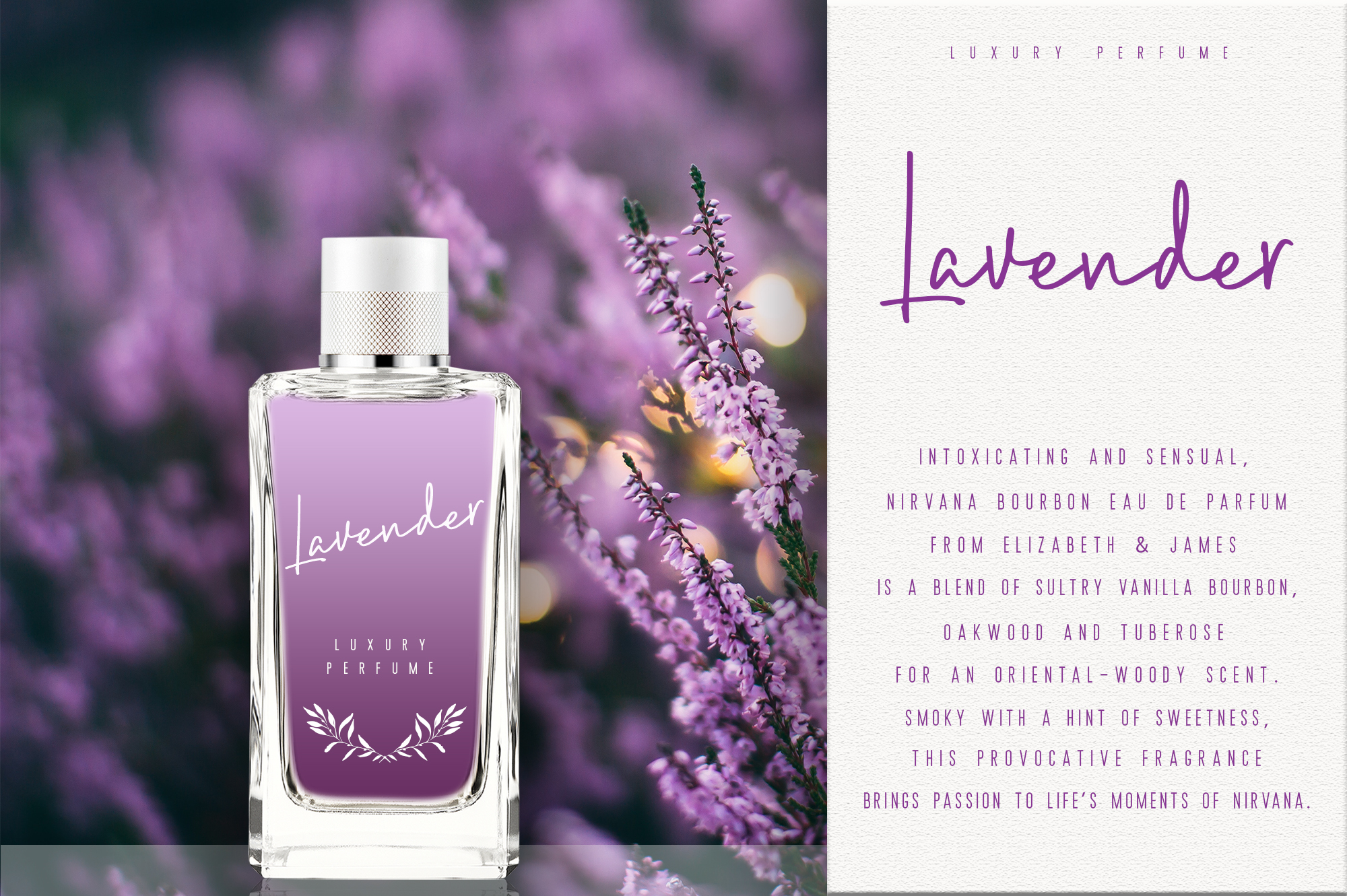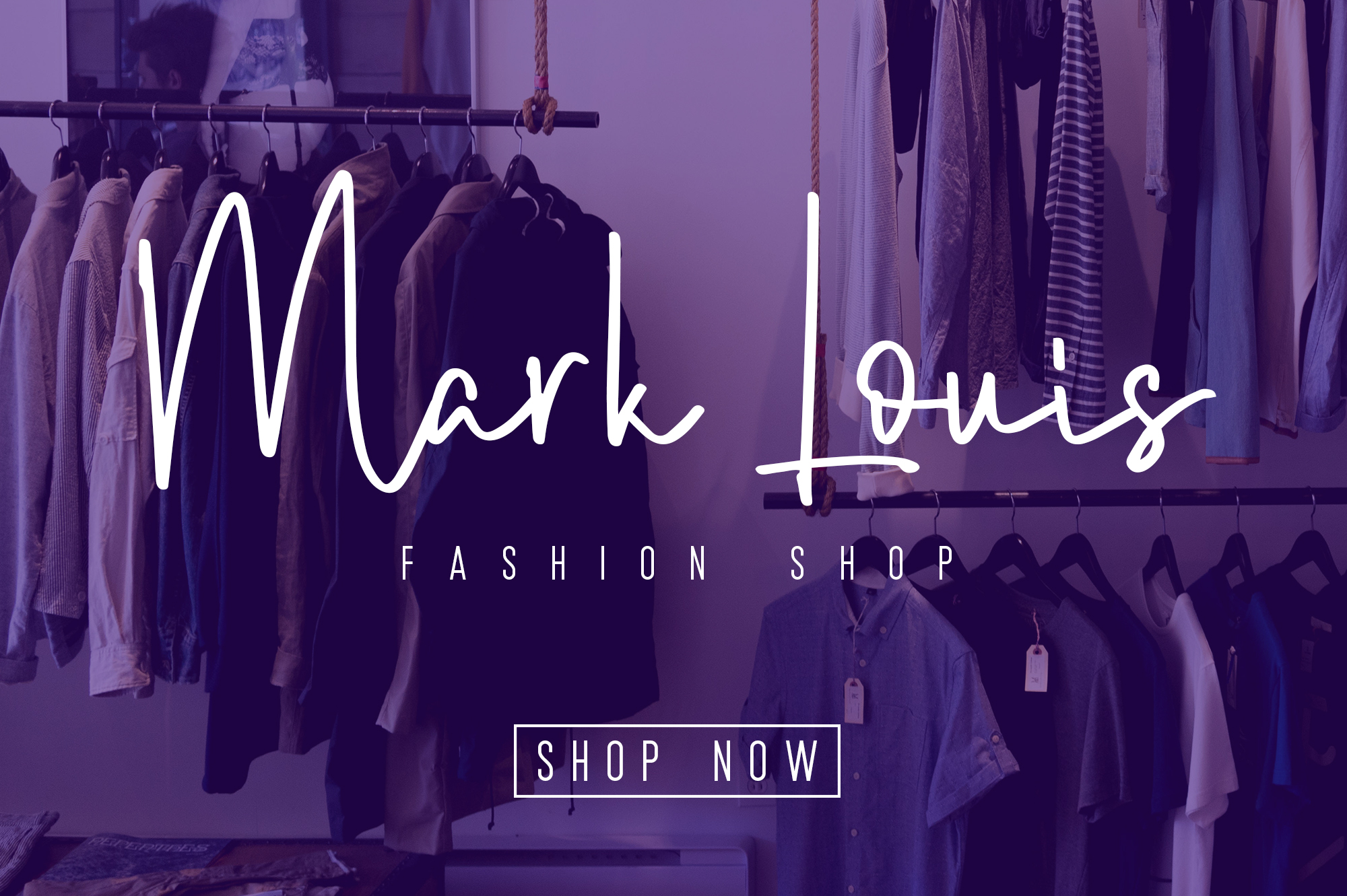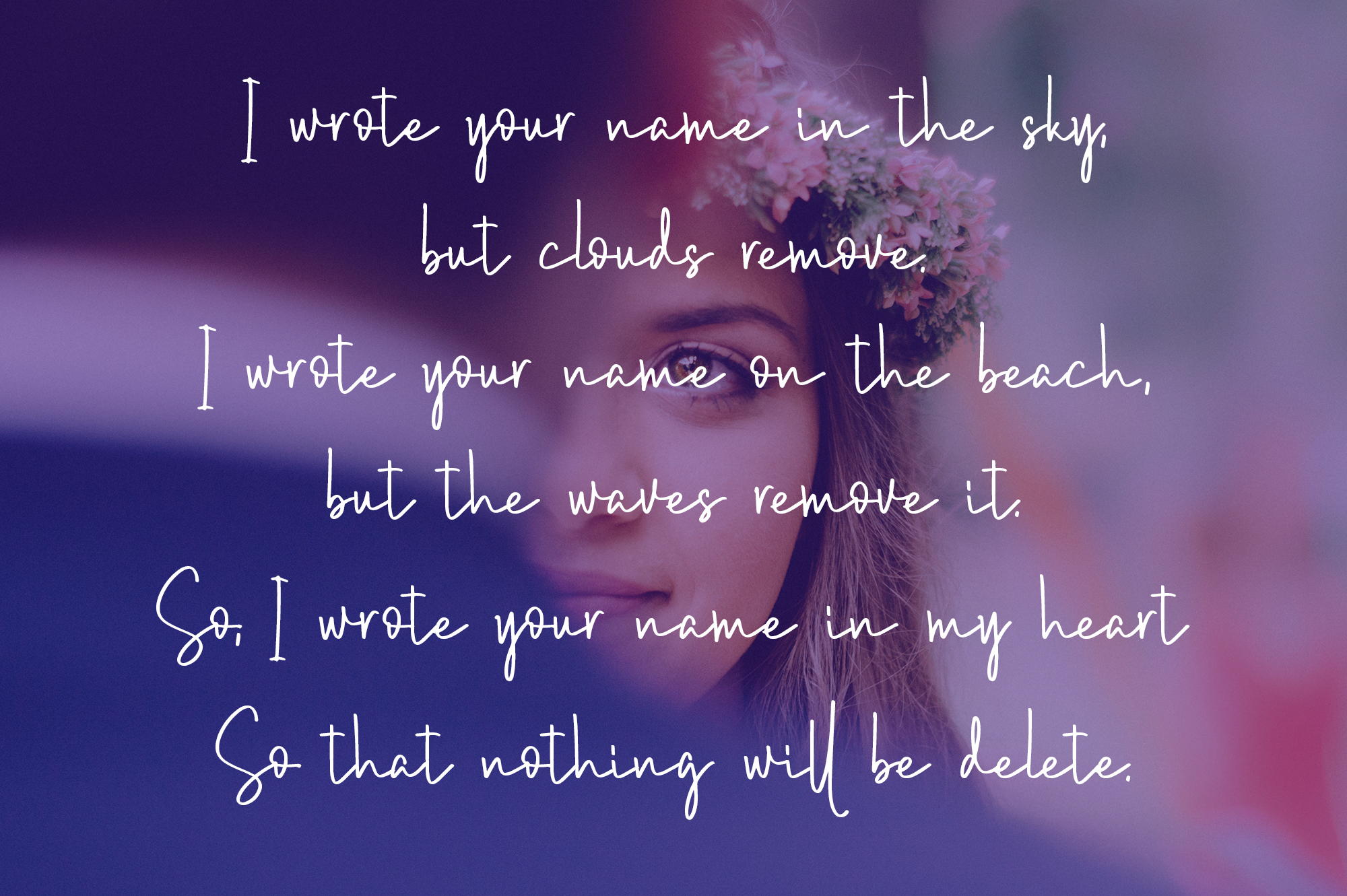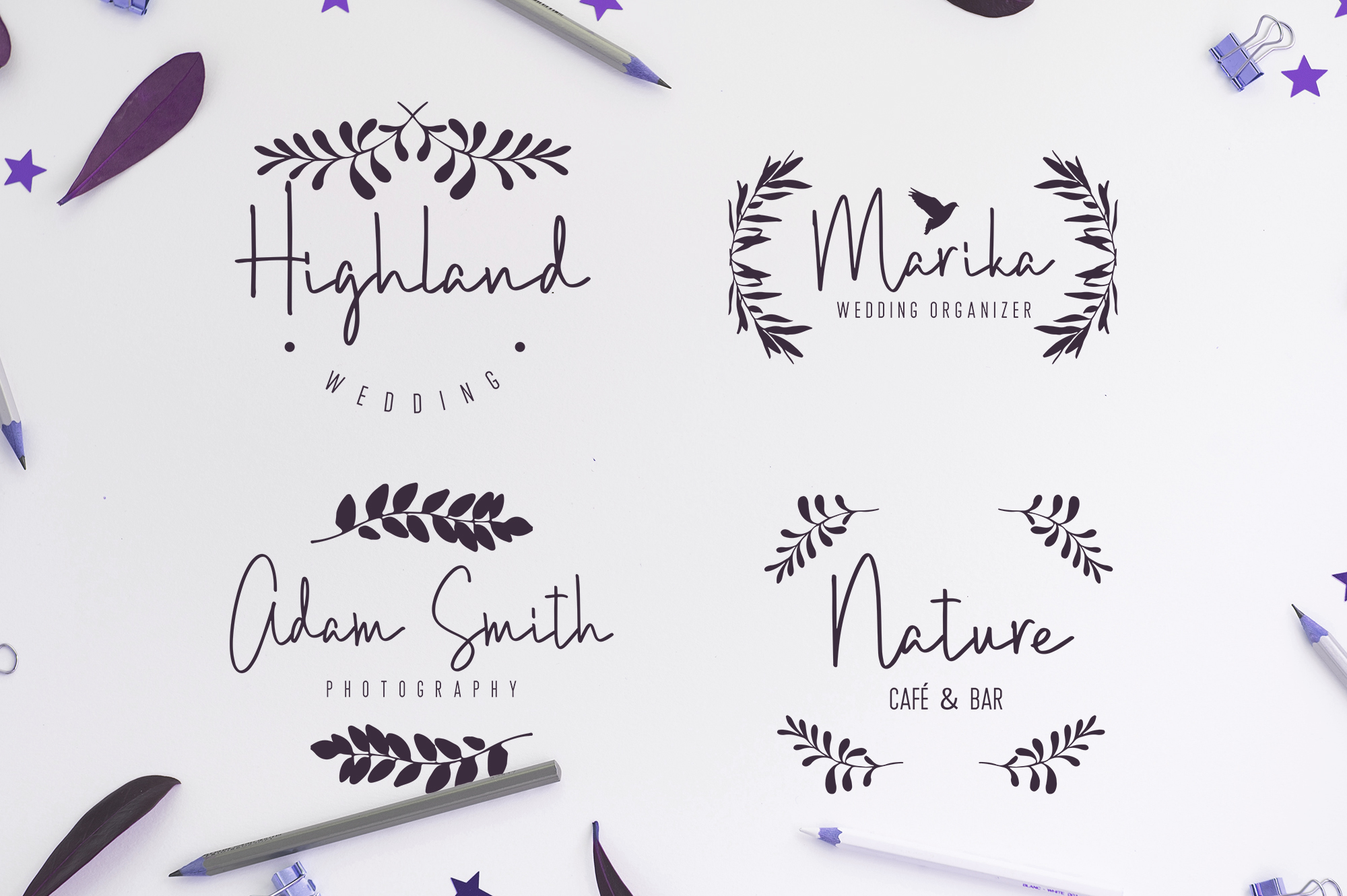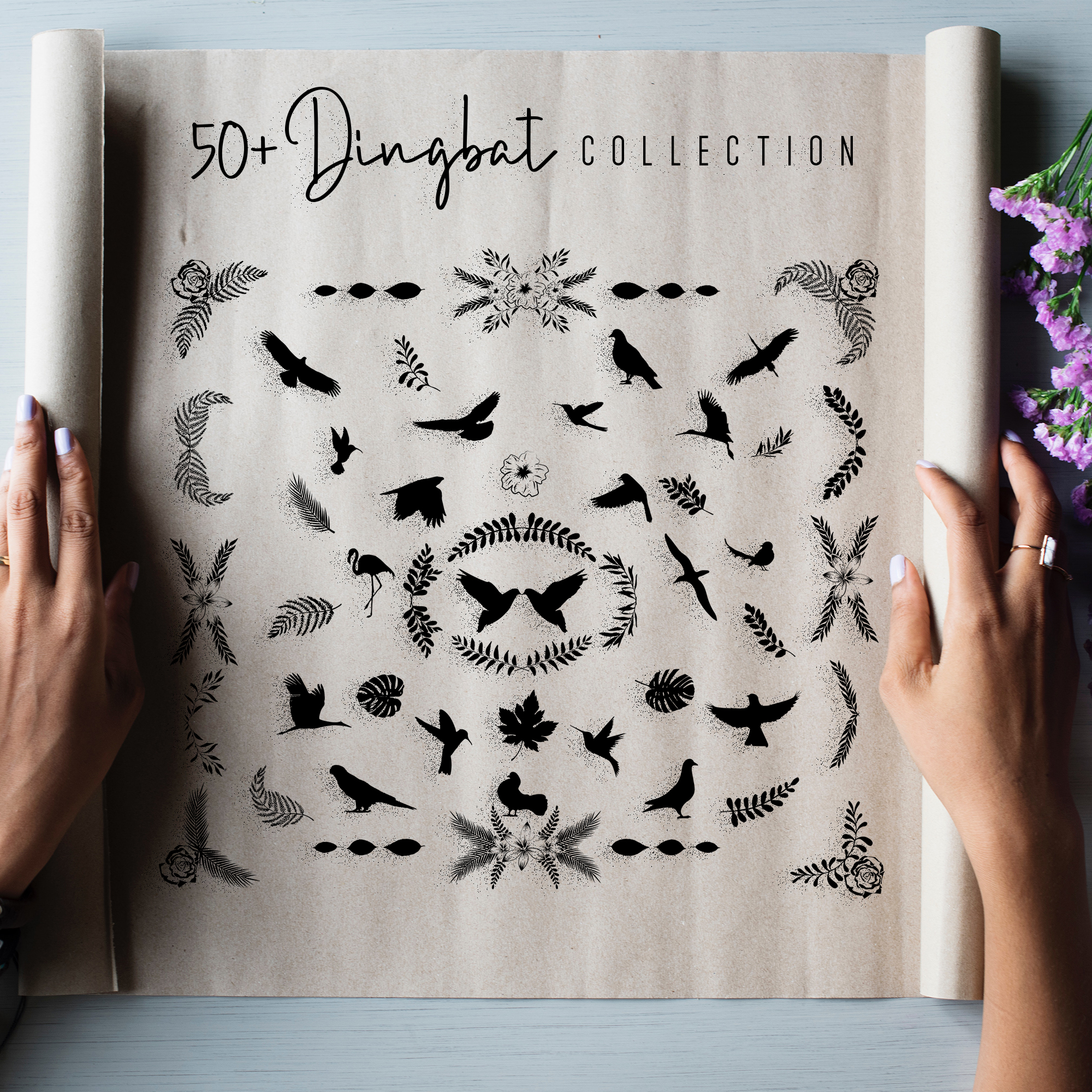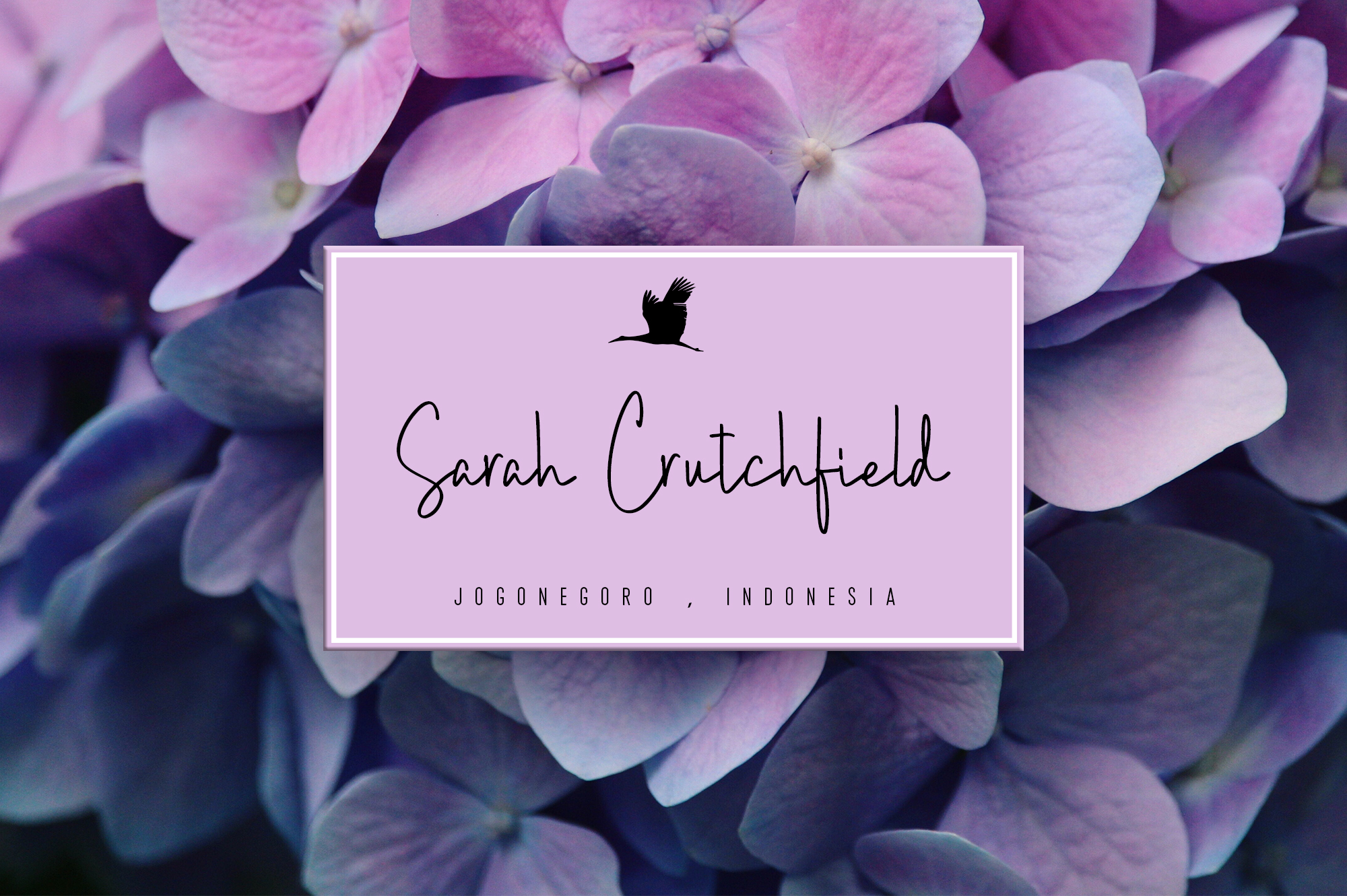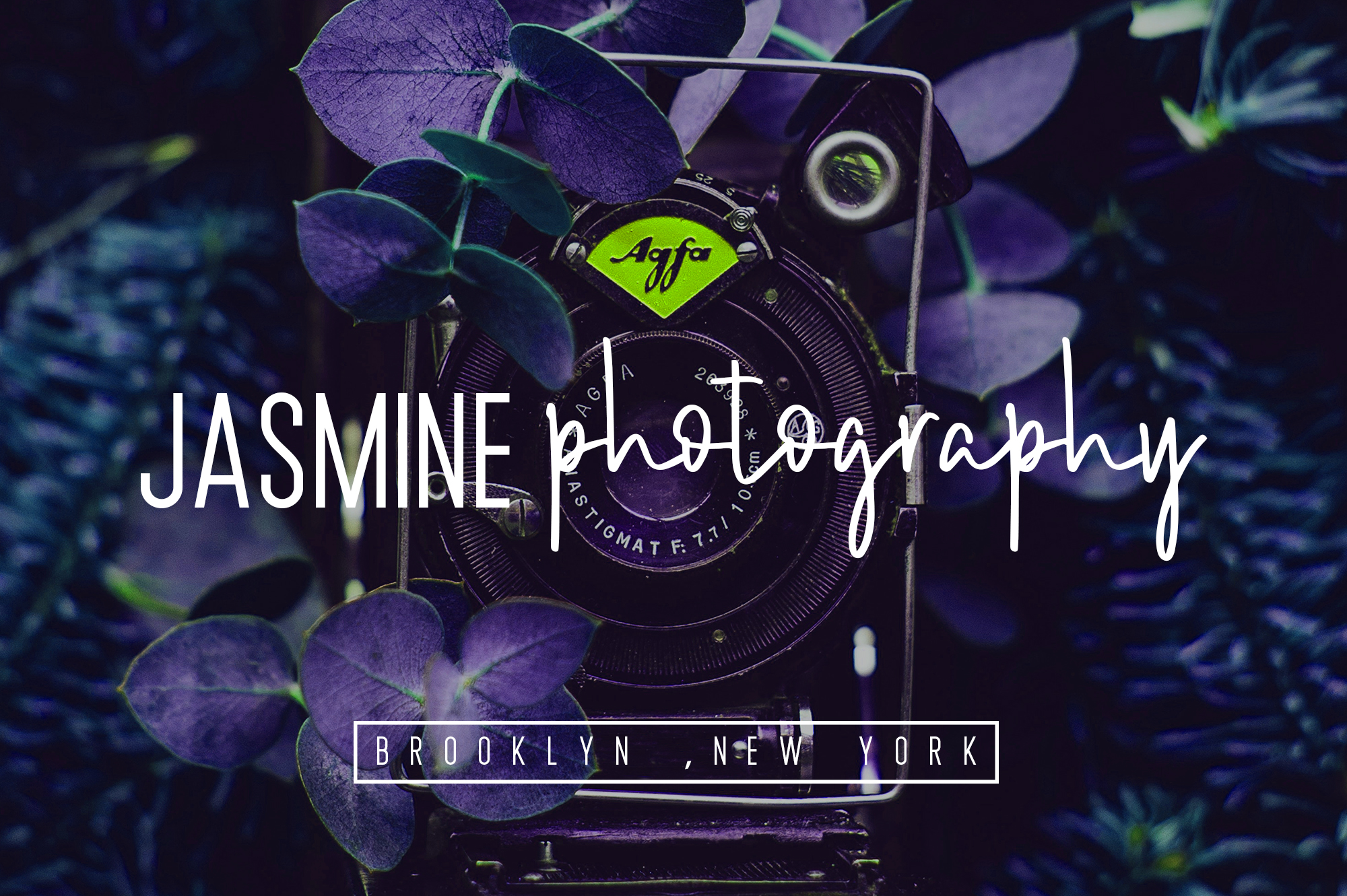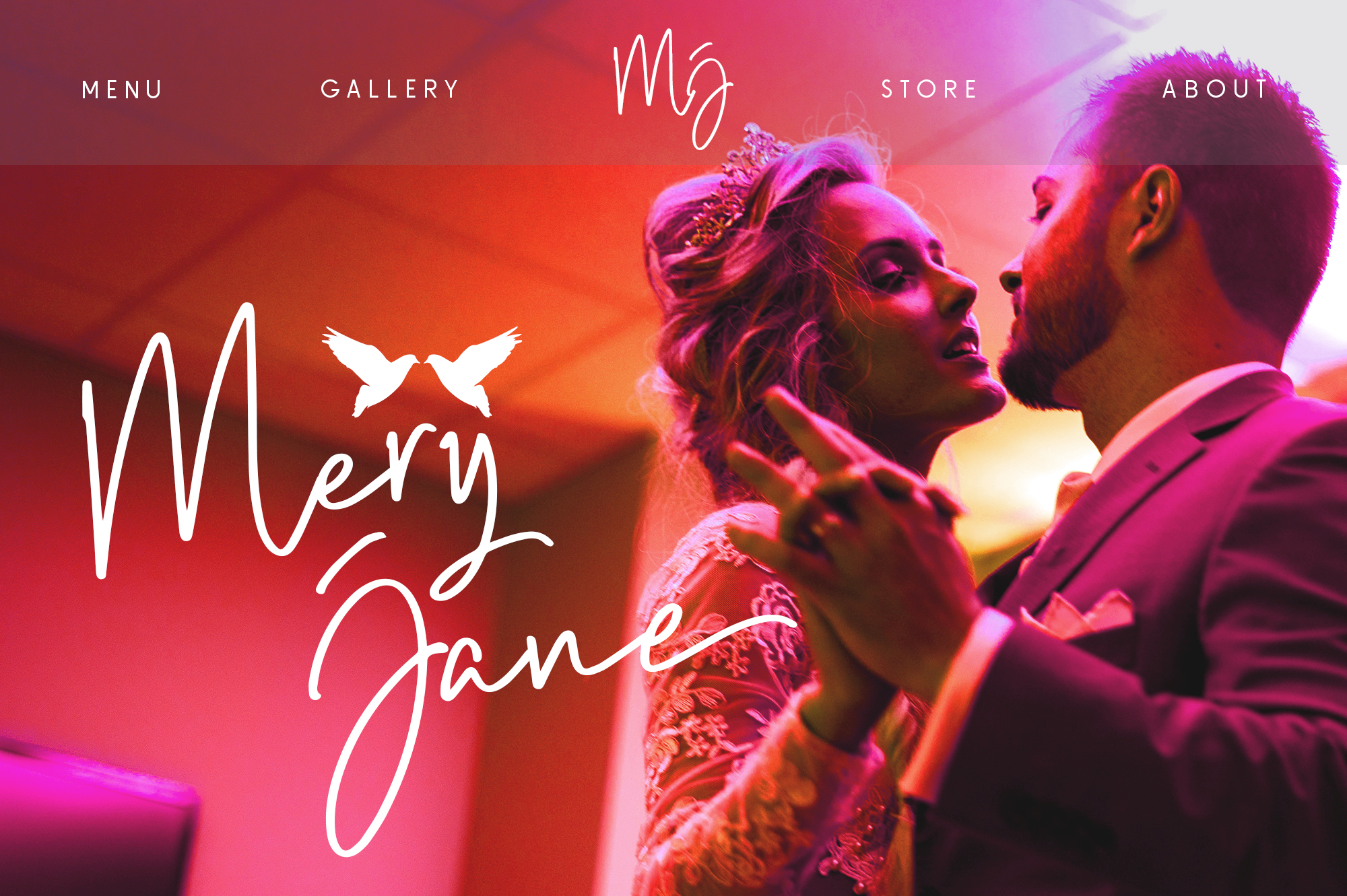
Brush Wayne Duo Font
About Brush Wayne Duo Font
Brush Wayne is a fun and modern font duo, in both a signature script style and sans serif. These two look perfectly complementary to one another, and also include over 50 dingbats as supporting components, giving your designs a fully realized and cohesive style.